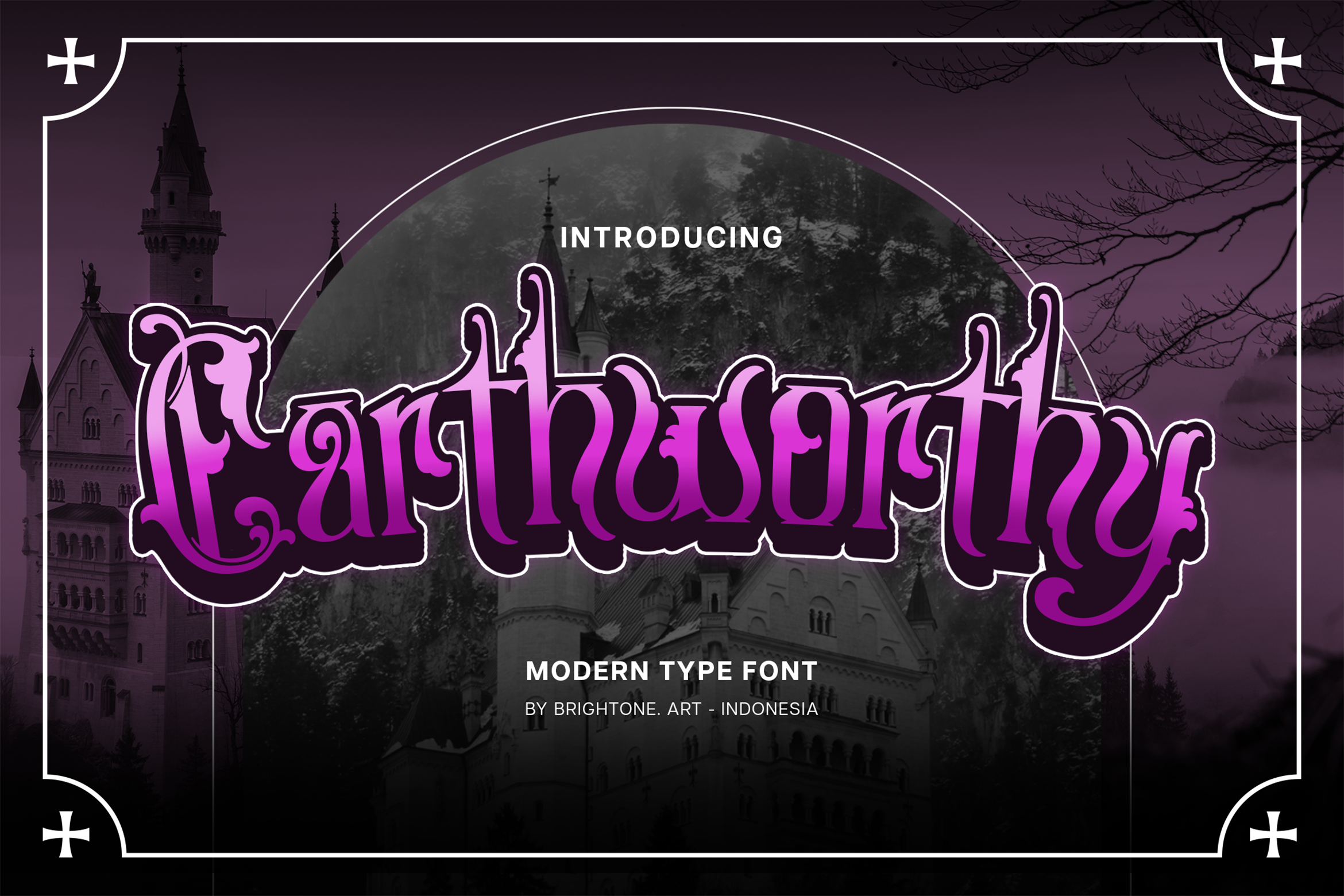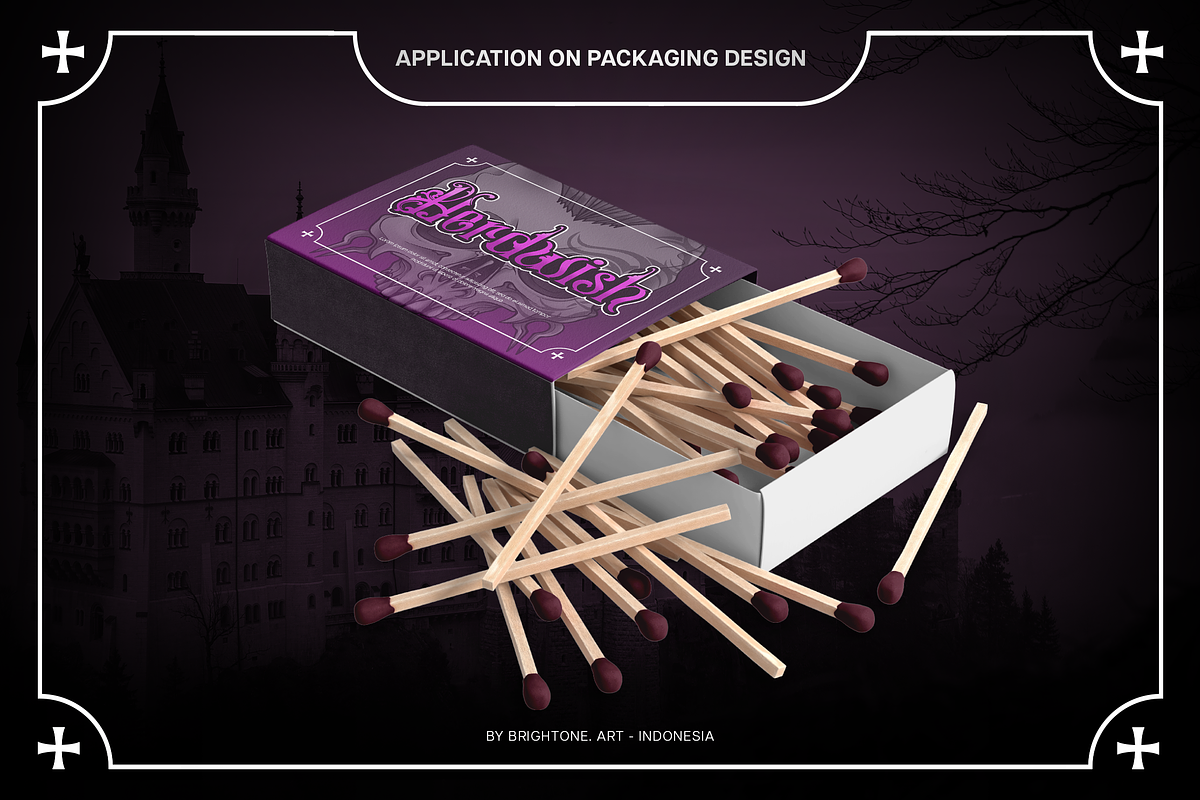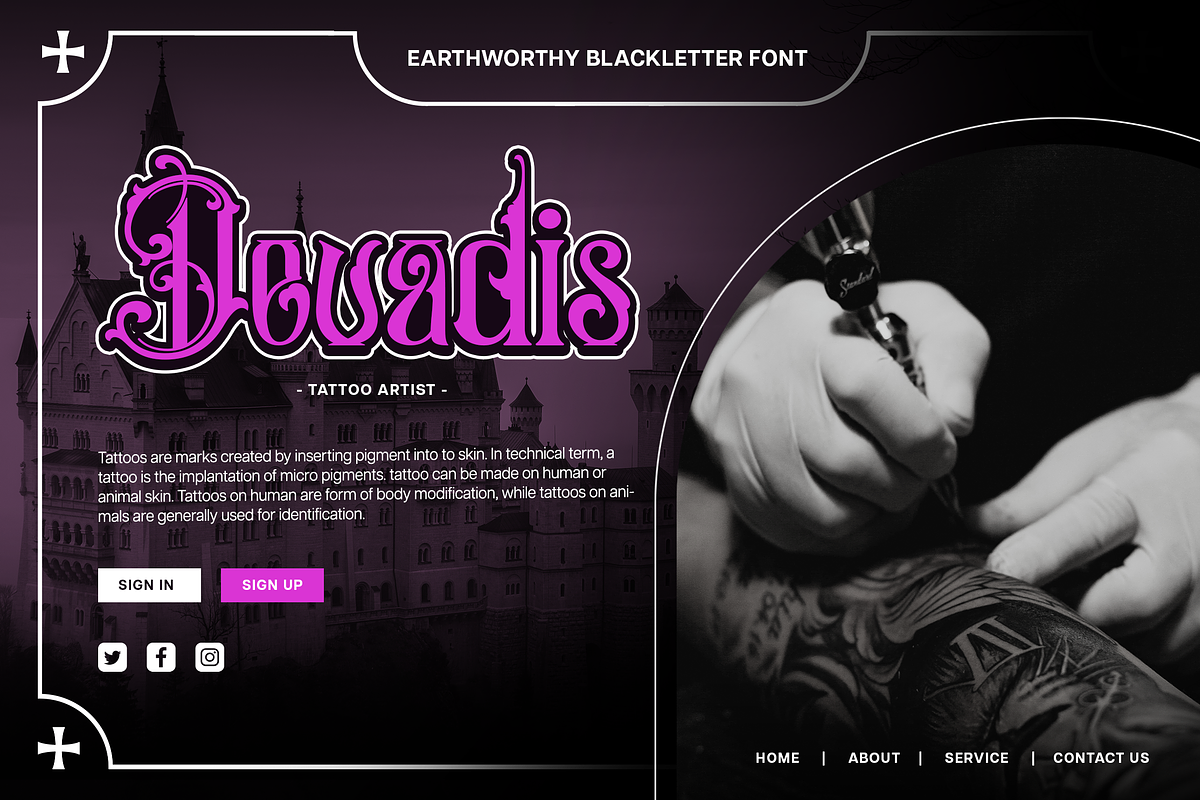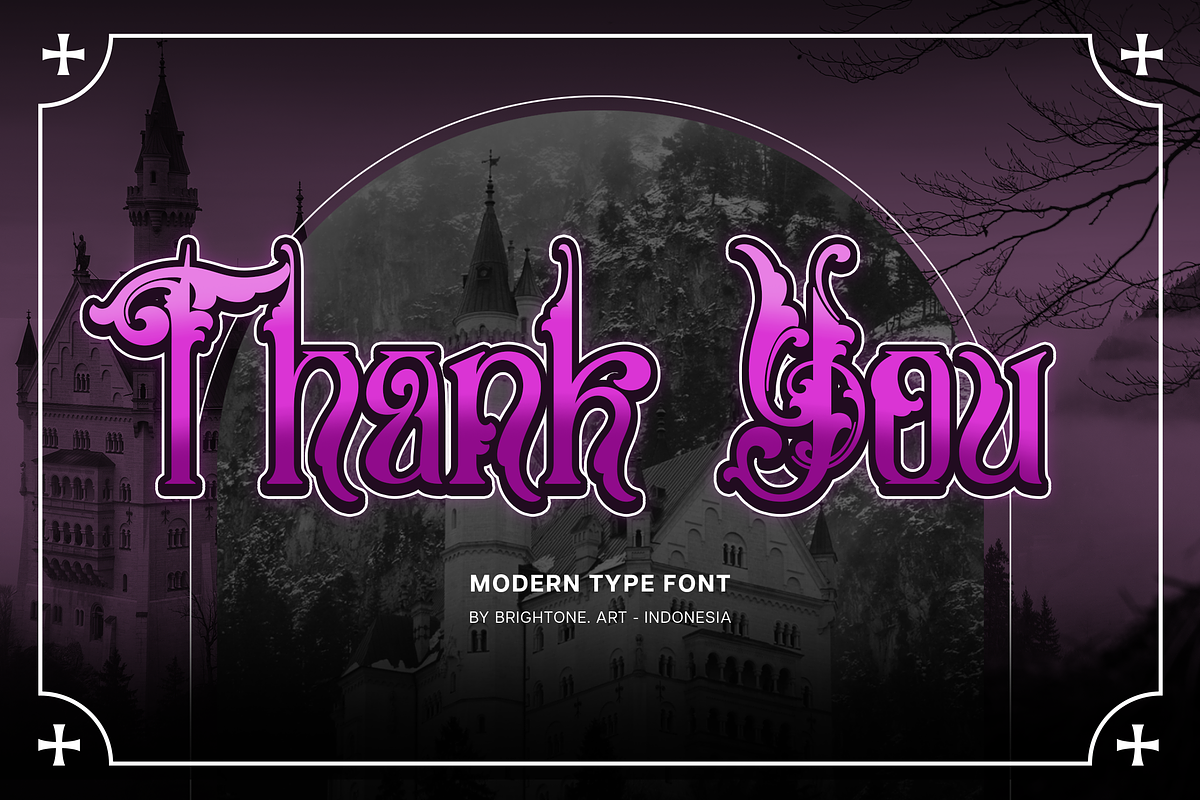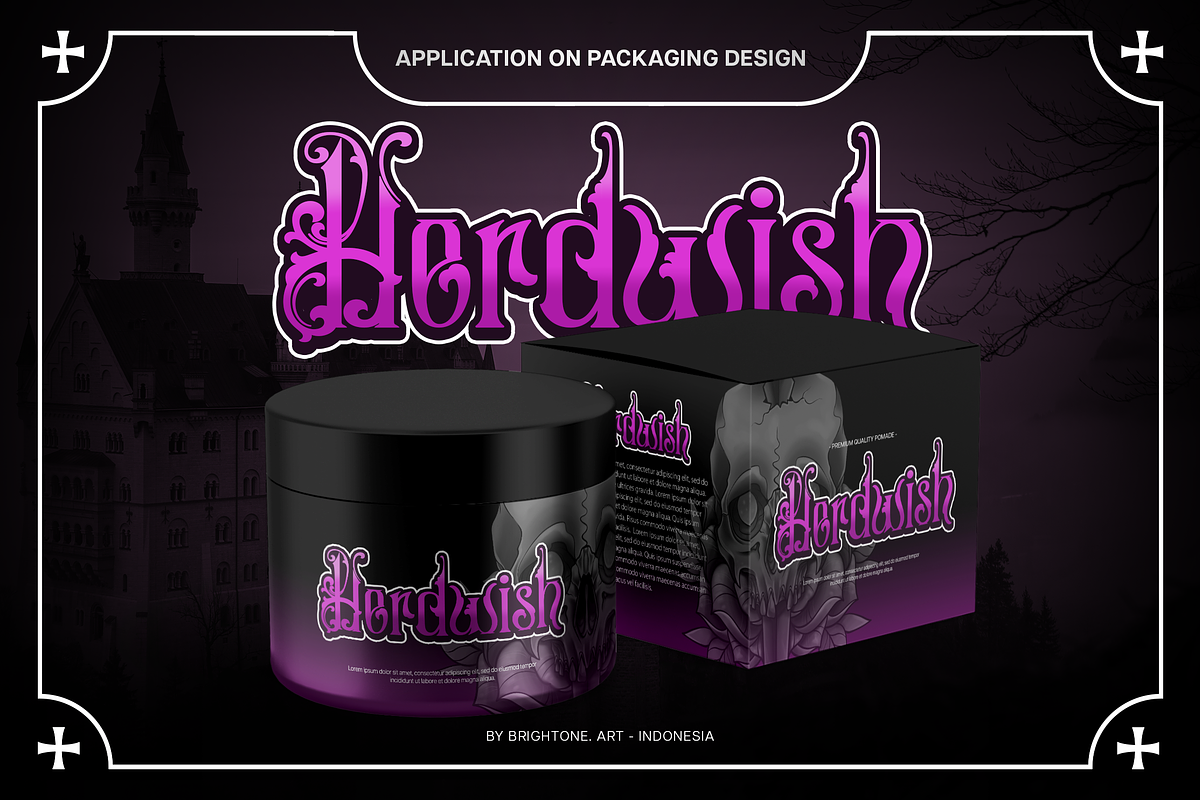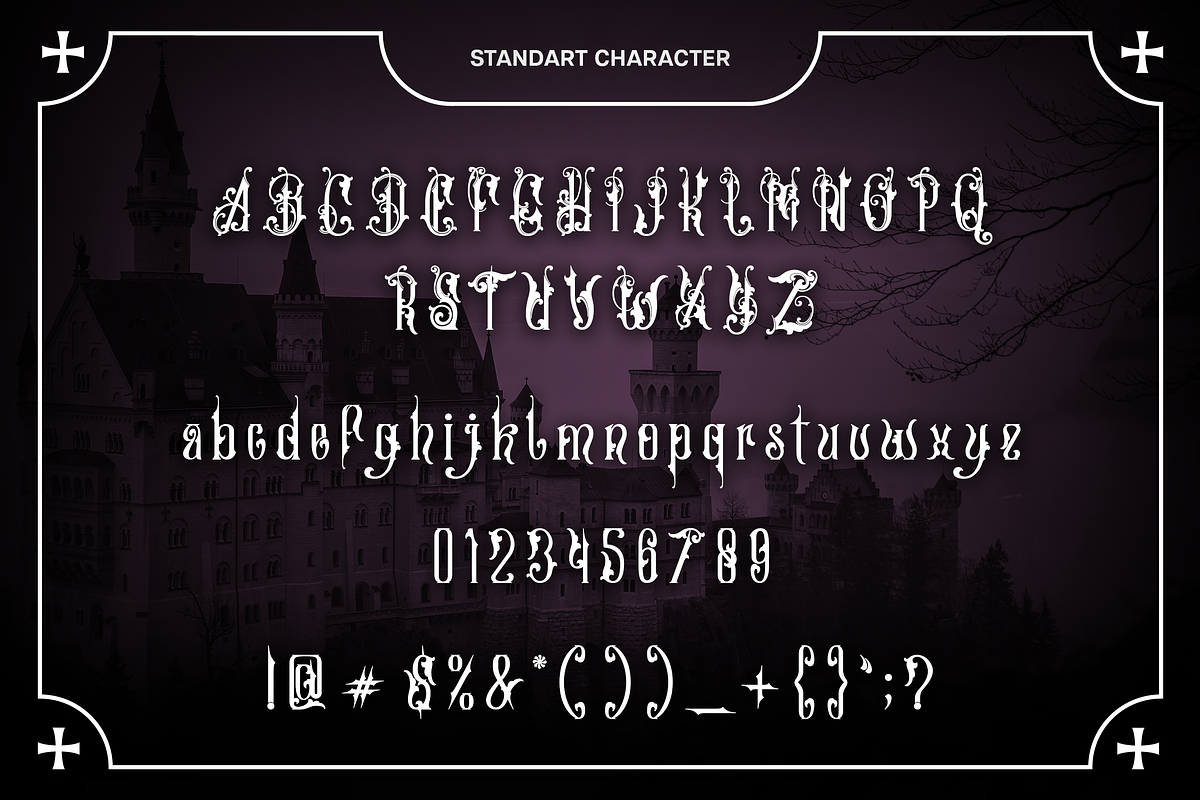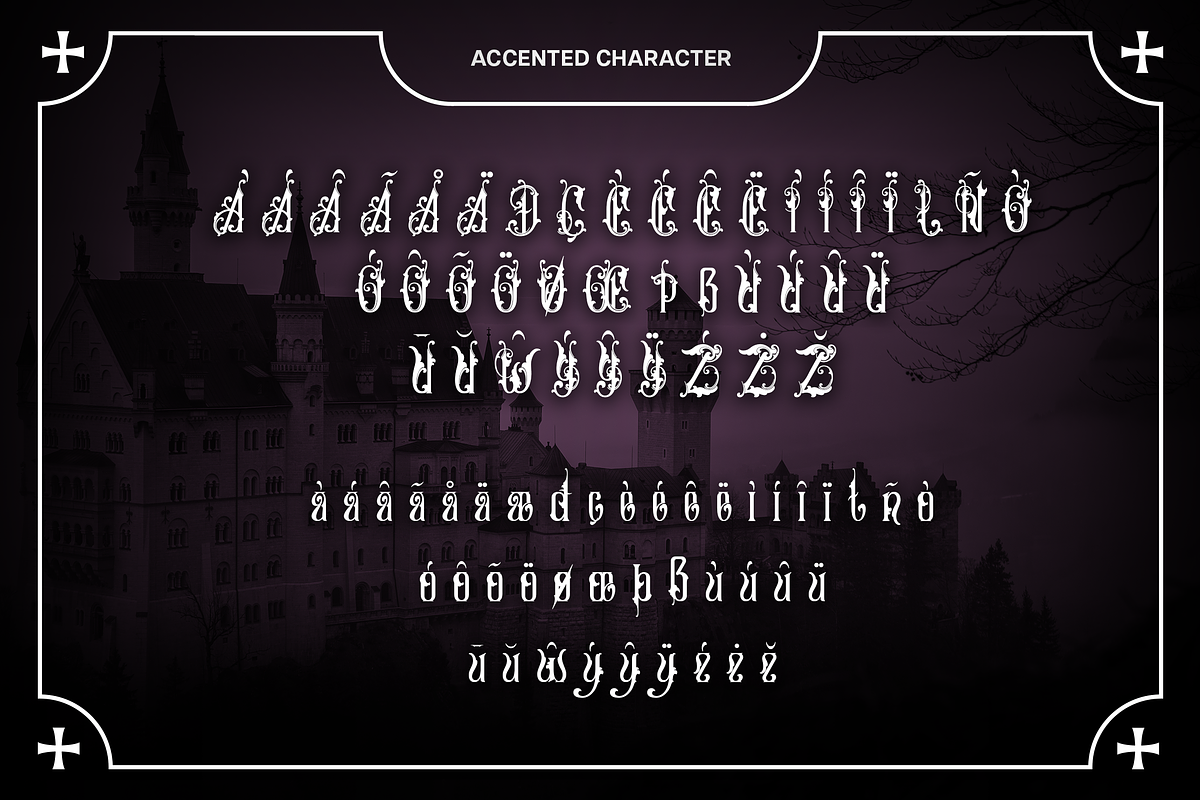
Earthworthy - Modern Decorative Font
EARTHWORTHY is script font with good style and classy touch, these font includes:
- Uppercase and Lowercase Characters, Numbers and Punctuation.
- Multilingual Support (Eastern, Central and Western European countries).
EARTHWORTHY font is suitable to use for all purpose for your logo lettering, logo, label, packaging, sticker, branding and many more